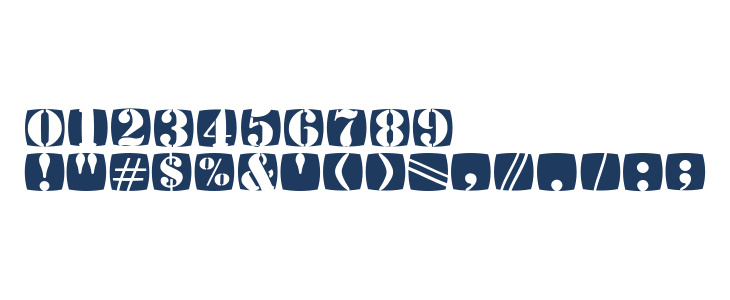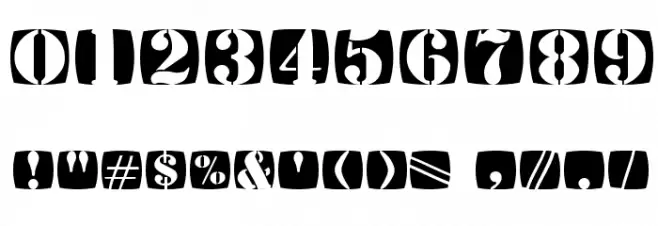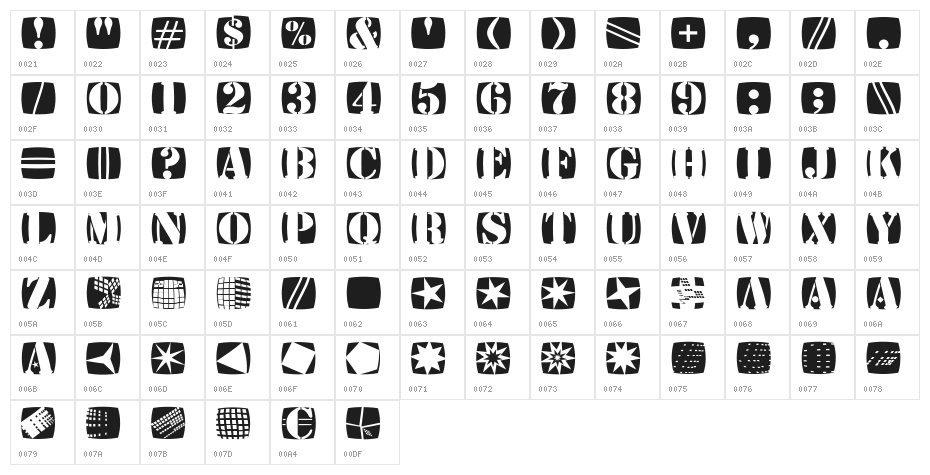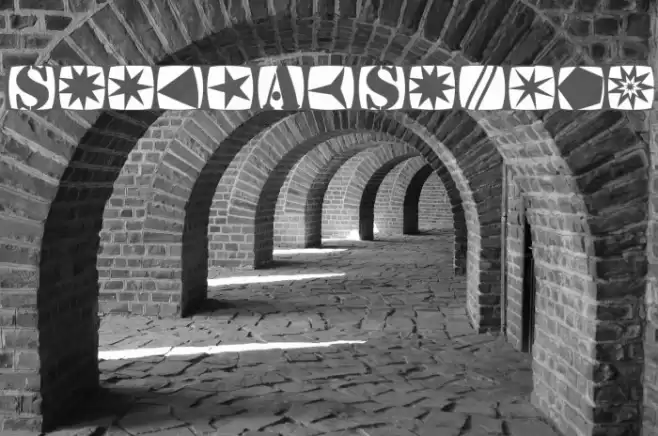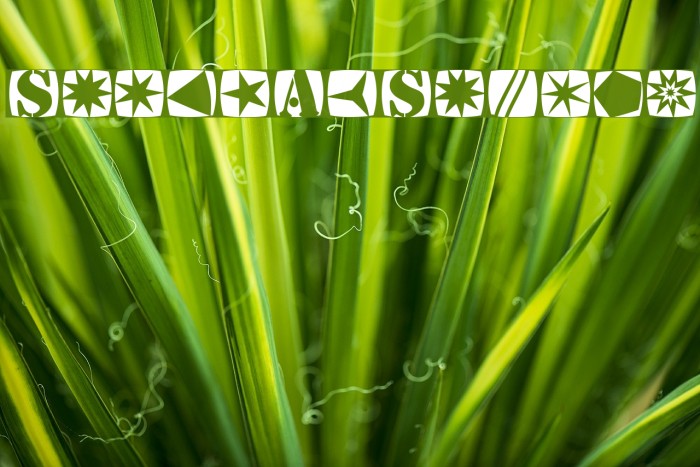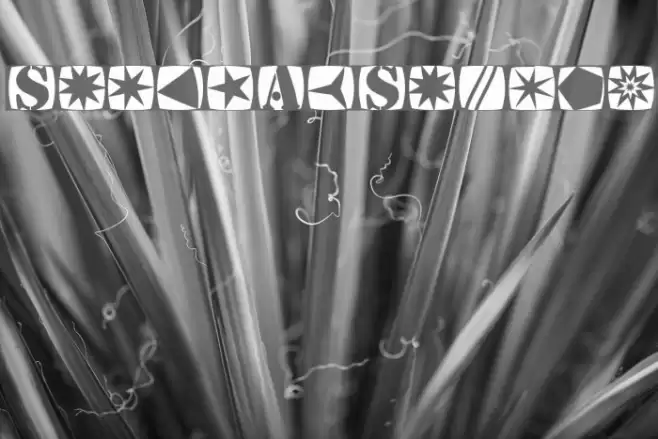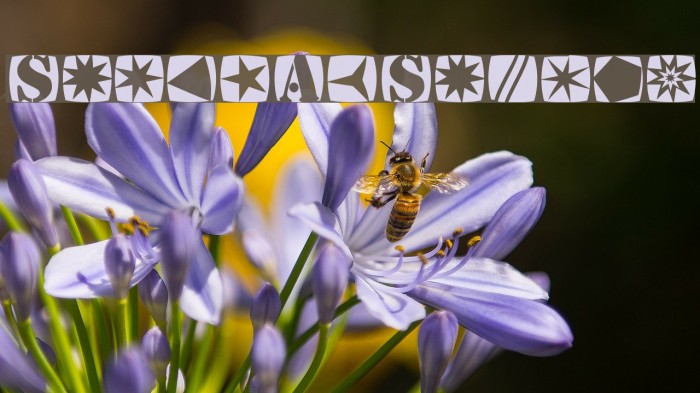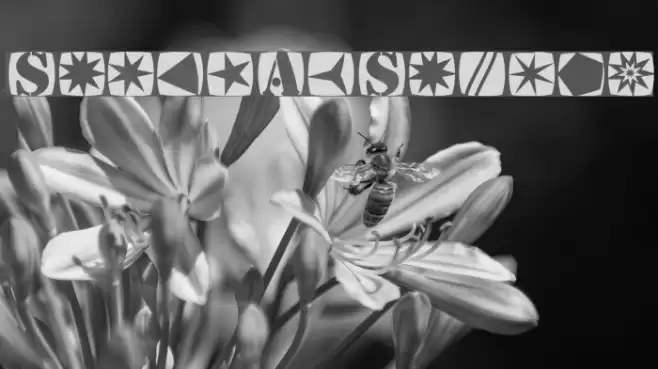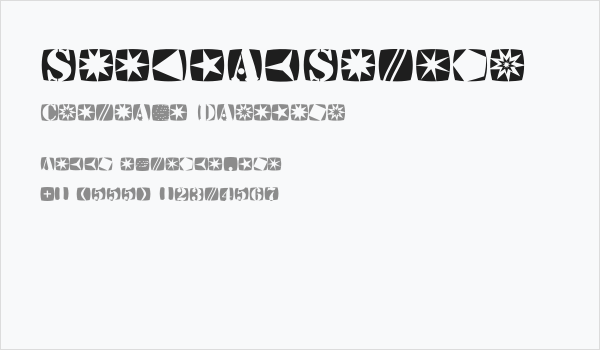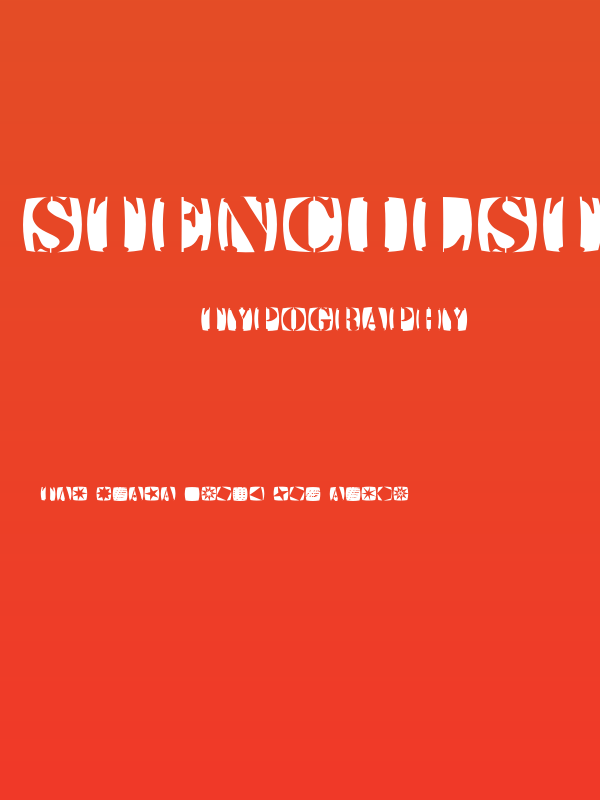
StencilStamps Font
StencilStamps Description
This font features a bold and striking stencil design, characterized by its geometric shapes and cut-out sections. Each character is enclosed within a square, giving it a uniform and structured appearance. The letters and numbers are crafted with a high contrast between the thick and thin strokes, enhancing the boldness of the design. The special characters incorporate unique patterns and symbols, adding a decorative flair. This font is ideal for projects that require a strong visual impact, such as posters, signage, and branding materials.